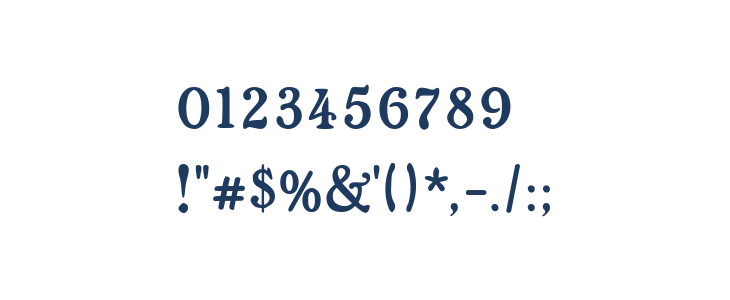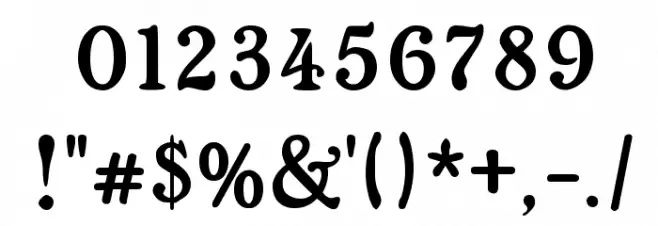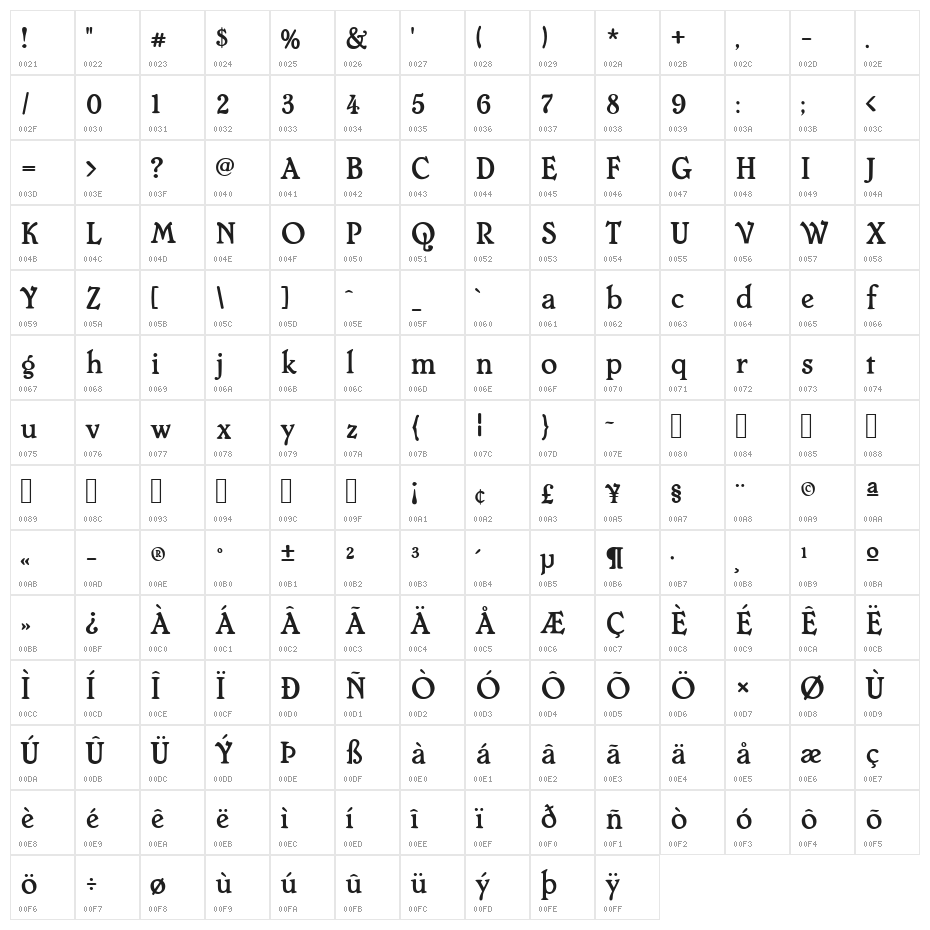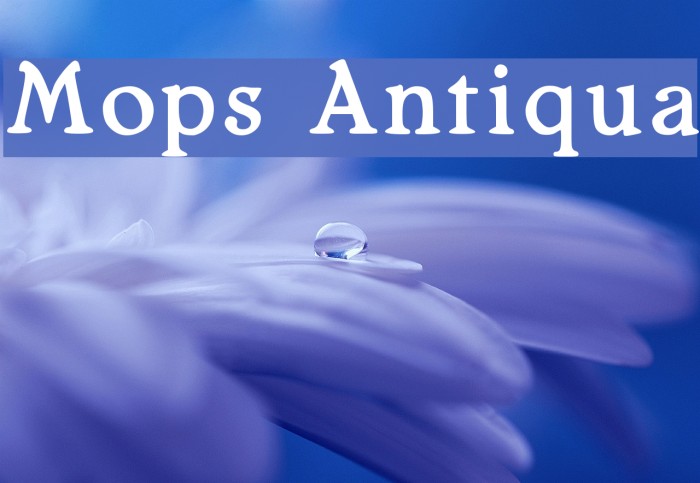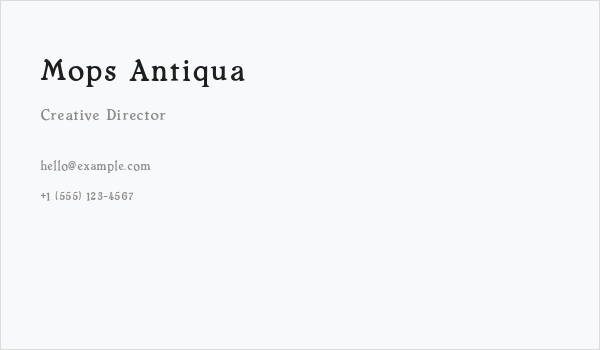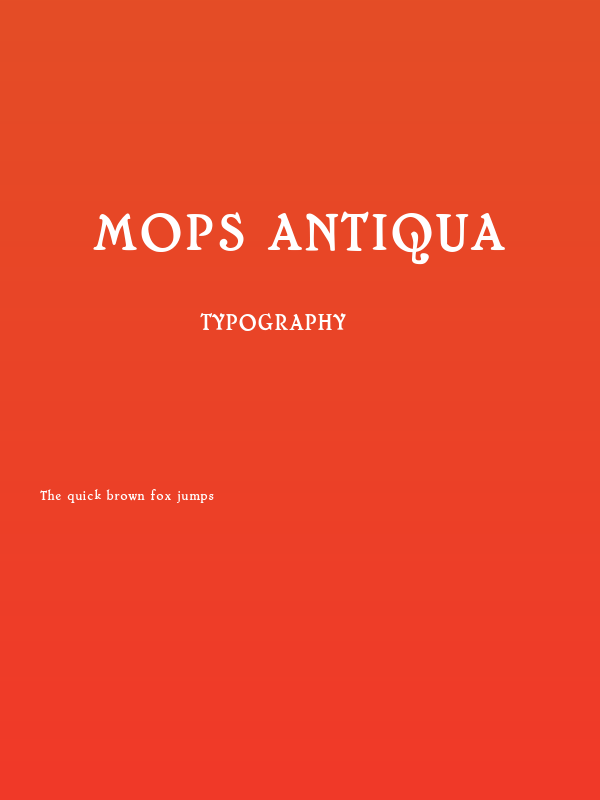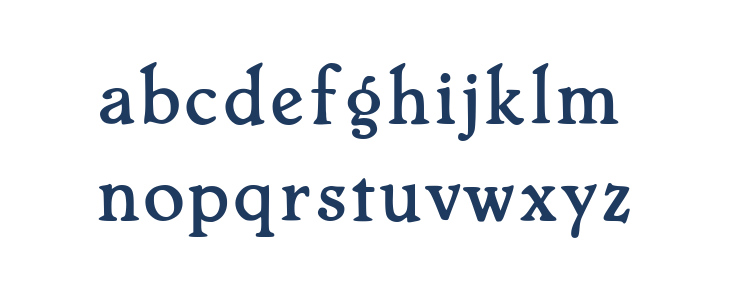
Mops Antiqua Font
Mops Antiqua Description
This font features a classic serif style with a touch of elegance and sophistication. The characters exhibit a slight curvature and flaring at the ends, giving them a distinctive and graceful appearance. The uppercase letters are bold and commanding, while the lowercase letters maintain a consistent flow with subtle variations in stroke width. The numerals are clear and legible, complementing the overall design. Special characters are well-integrated, maintaining the font's cohesive aesthetic. This font is ideal for projects that require a traditional yet stylish look.
Mops Antiqua